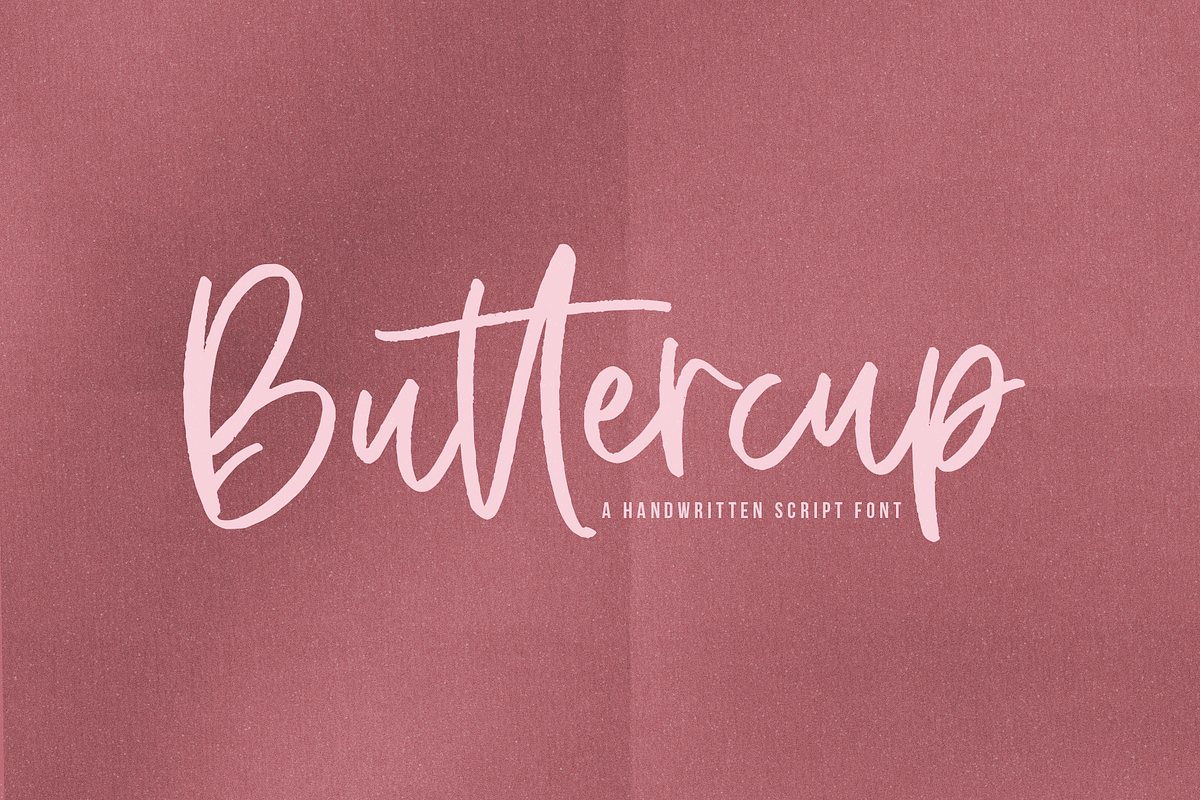
Buttercup | Handwritten Script Font Free Download
Buttercup | Handwritten Script Font Free Download is a charming and elegant handwritten script typeface designed to add a personal, artistic touch to your designs. With its flowing, organic strokes and playful curves, this font is perfect for creating wedding invitations, branding, greeting cards, social media posts, and any project that requires a unique and stylish handwritten look.
The font's friendly and graceful design makes it versatile for both formal and casual projects, bringing a warm, approachable vibe to your typography. Whether you're designing for a creative brand, a special event, or a personal project, Buttercup adds personality and elegance to your work.